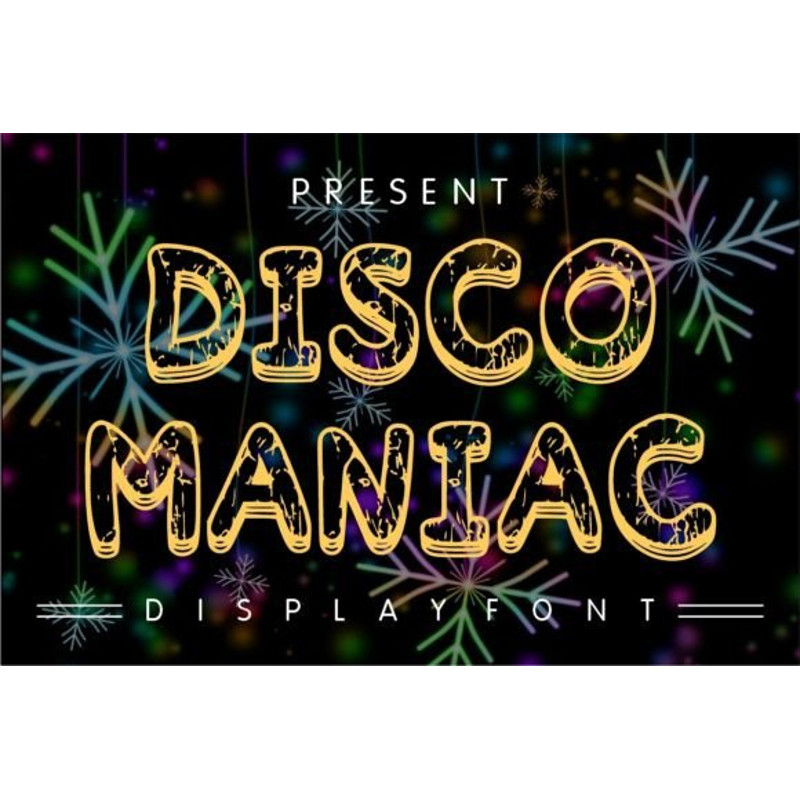
Disco Maniac Font
Disco Maniac is a retro aesthetic display font that makes your creative projects stand out! This font is perfect for t-shirts, stickers, book covers, children’s books, social media posts, invitations, and more!